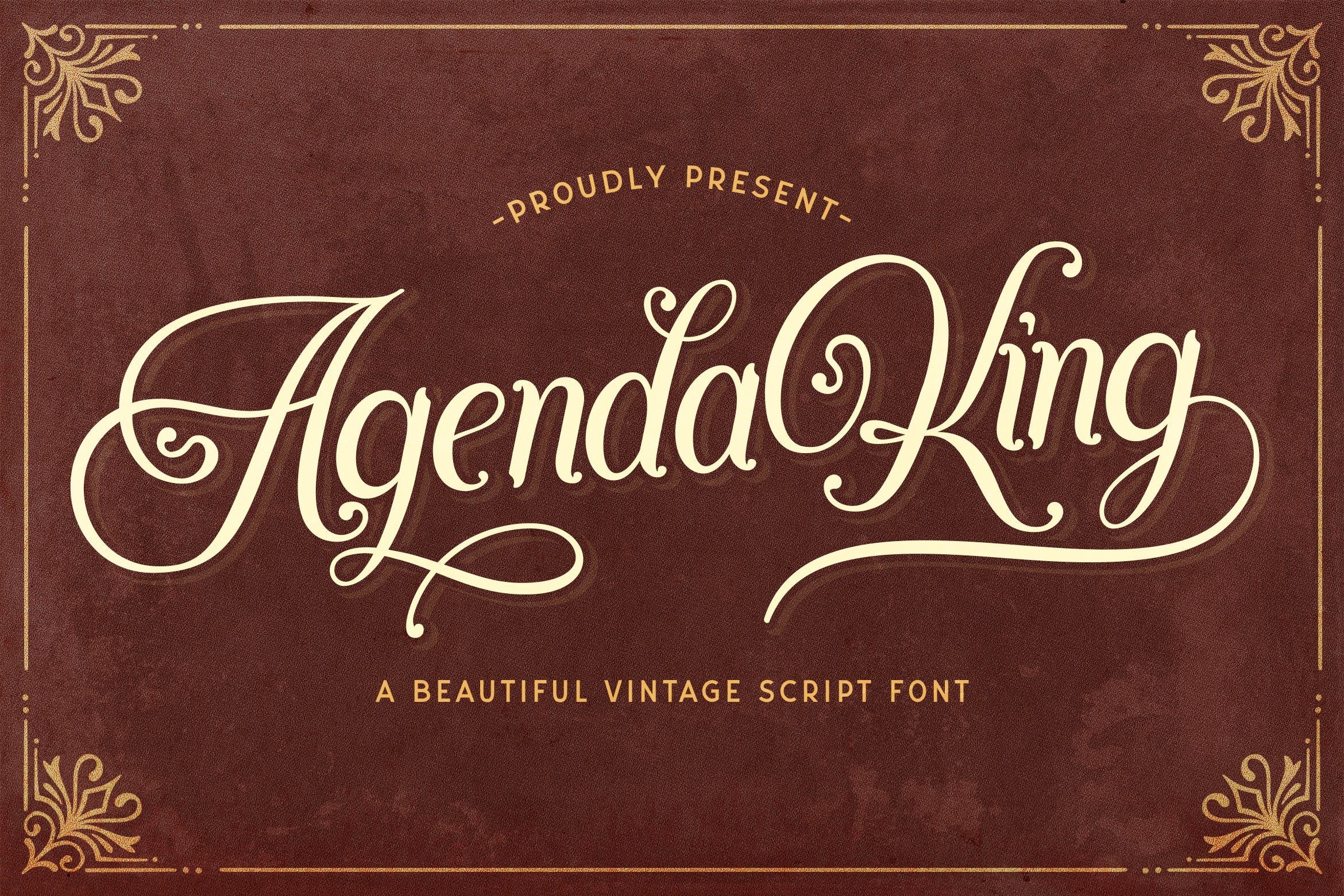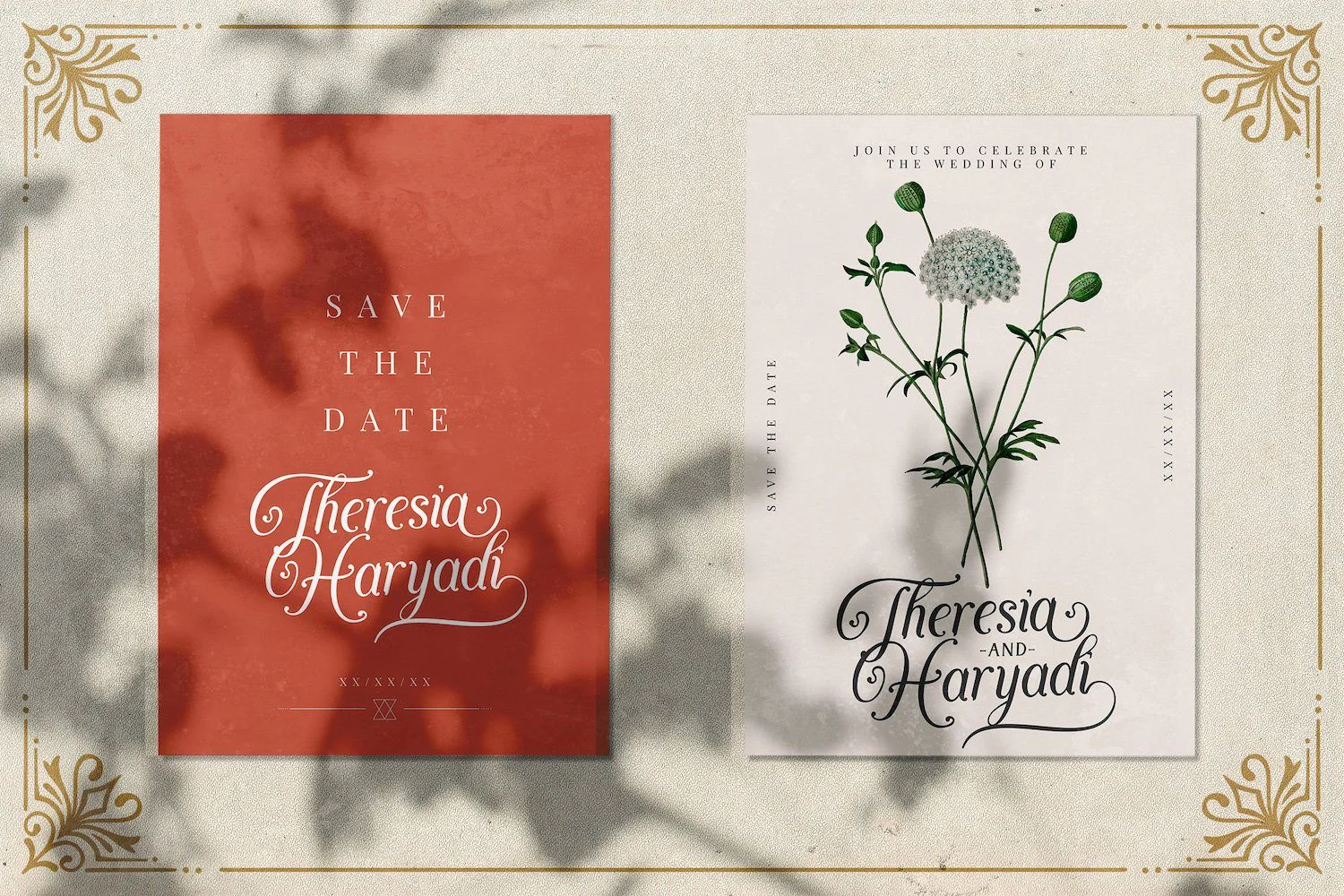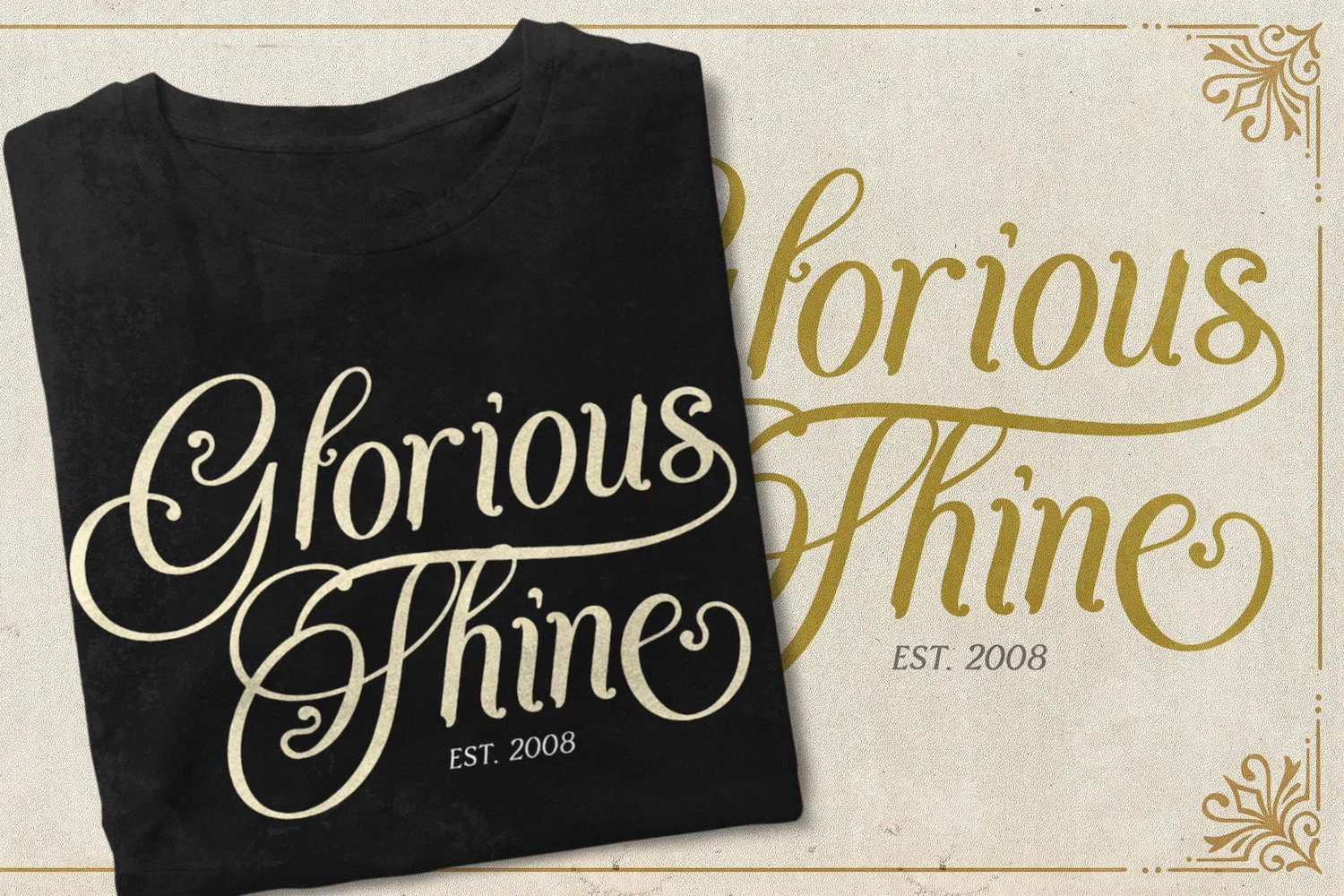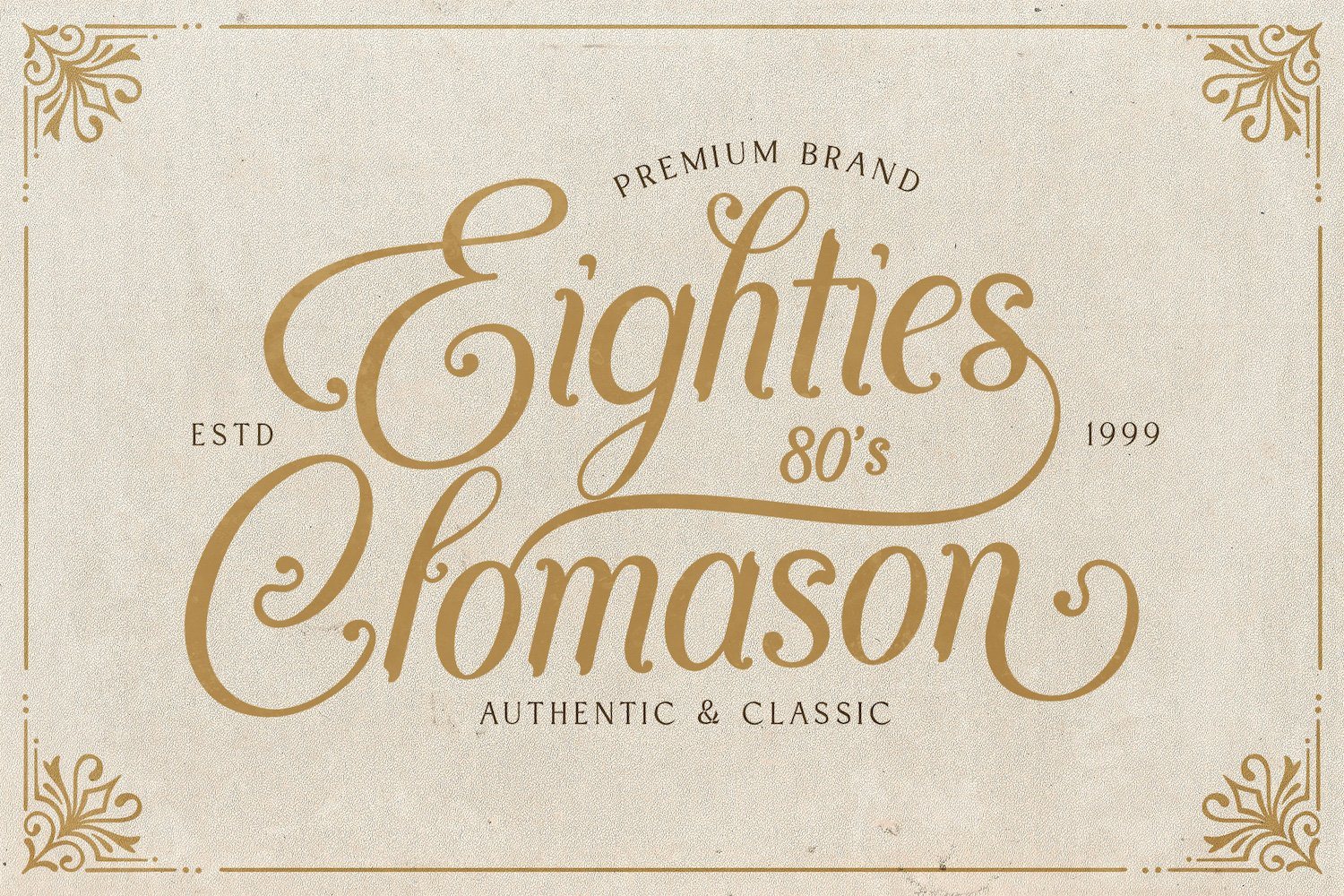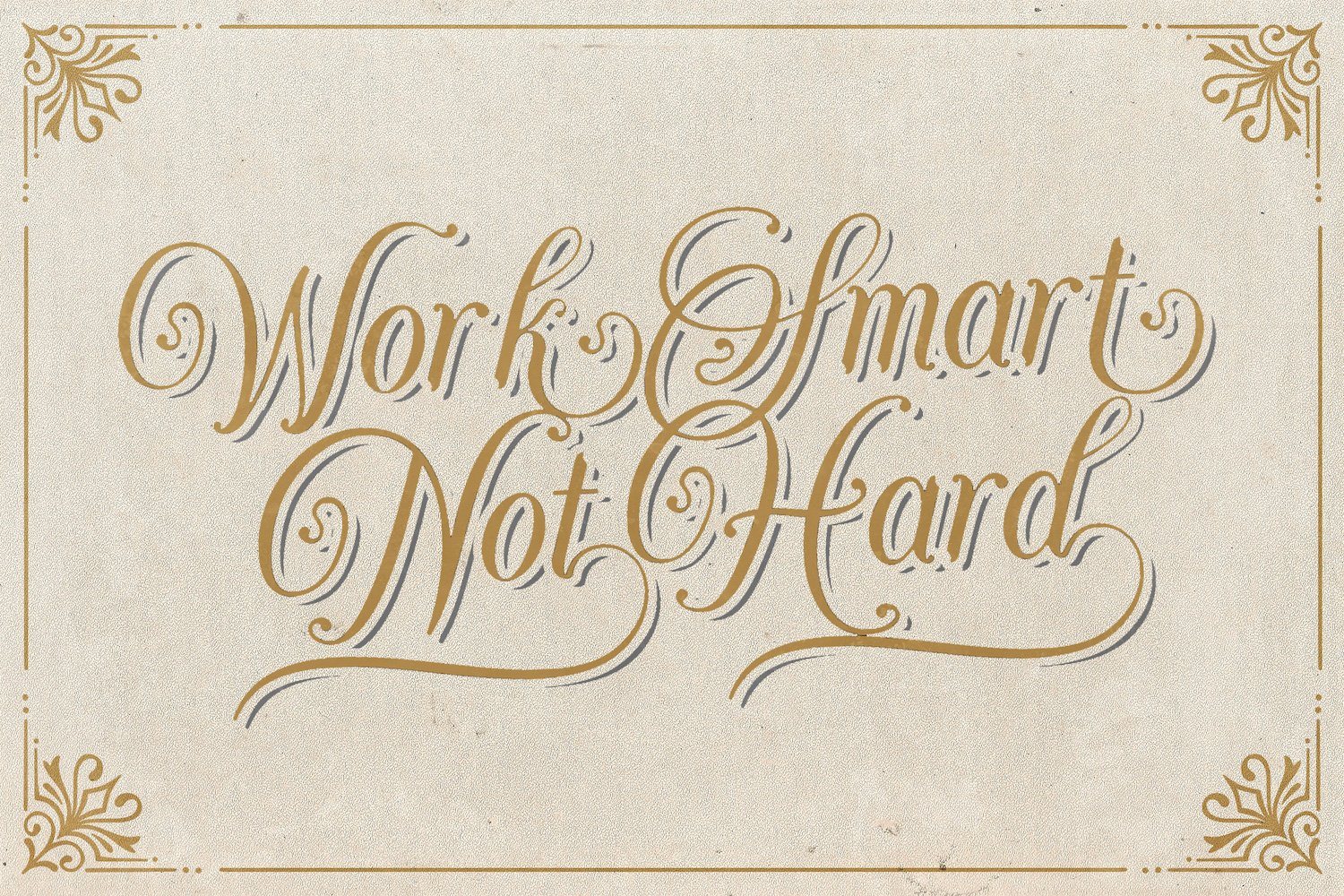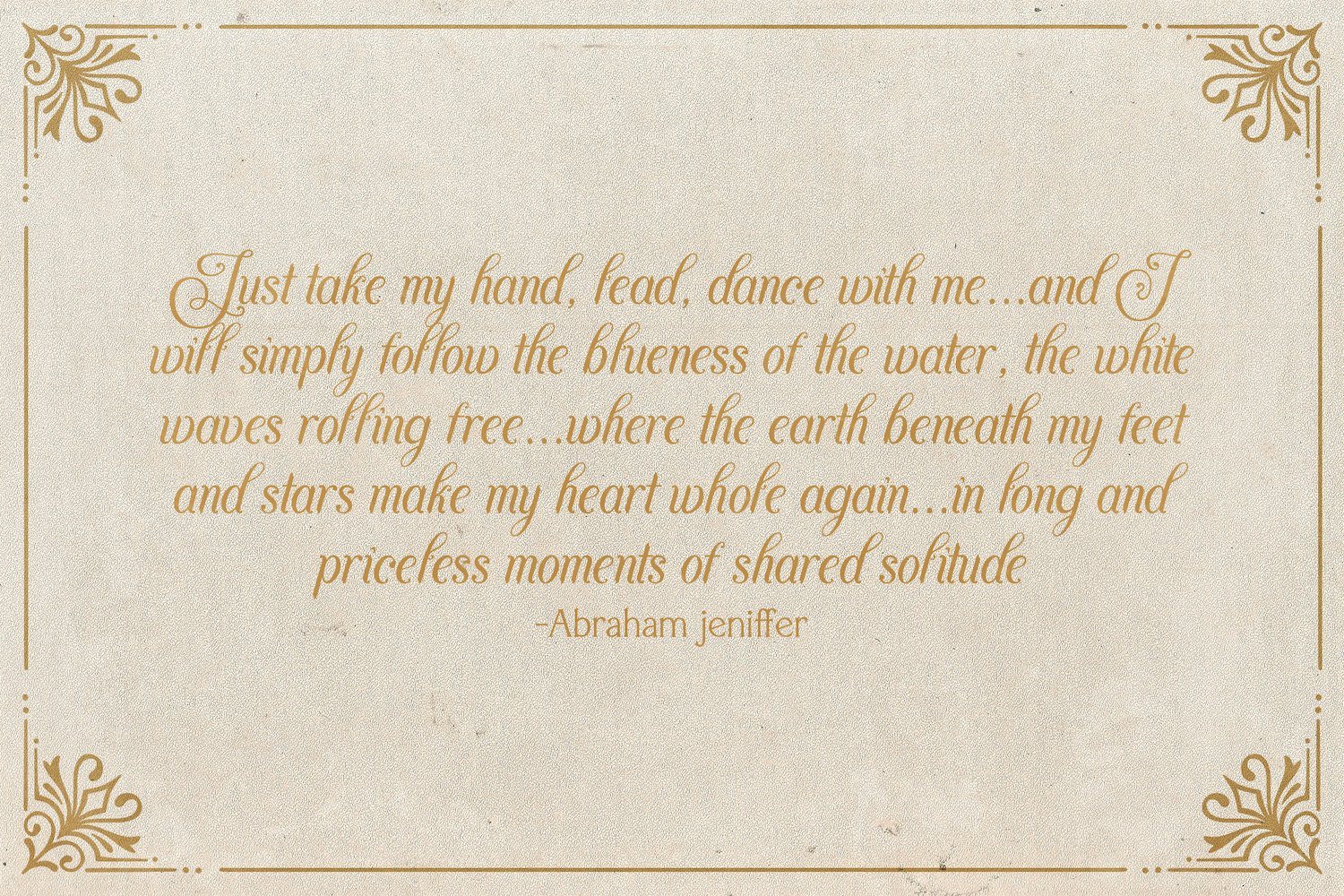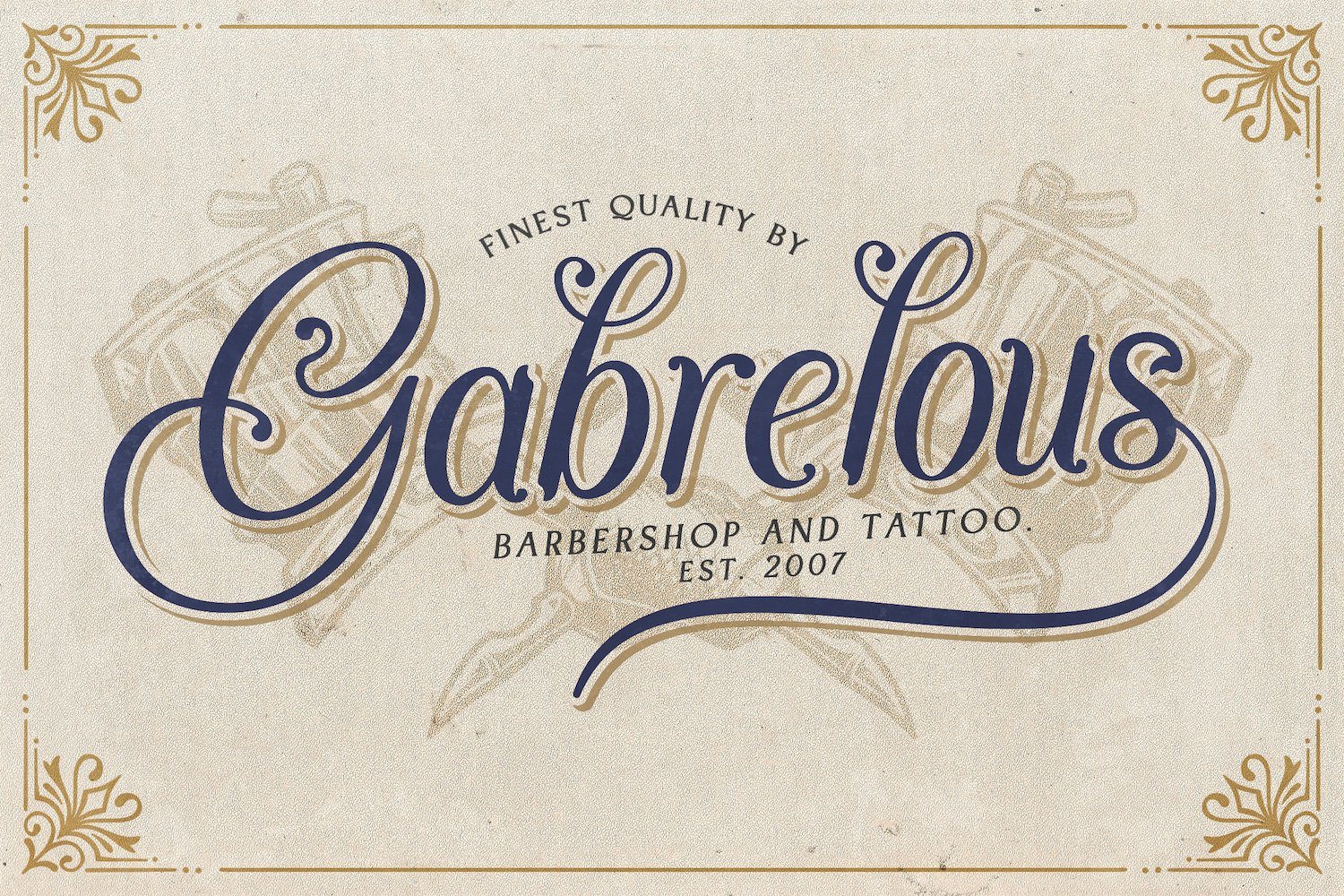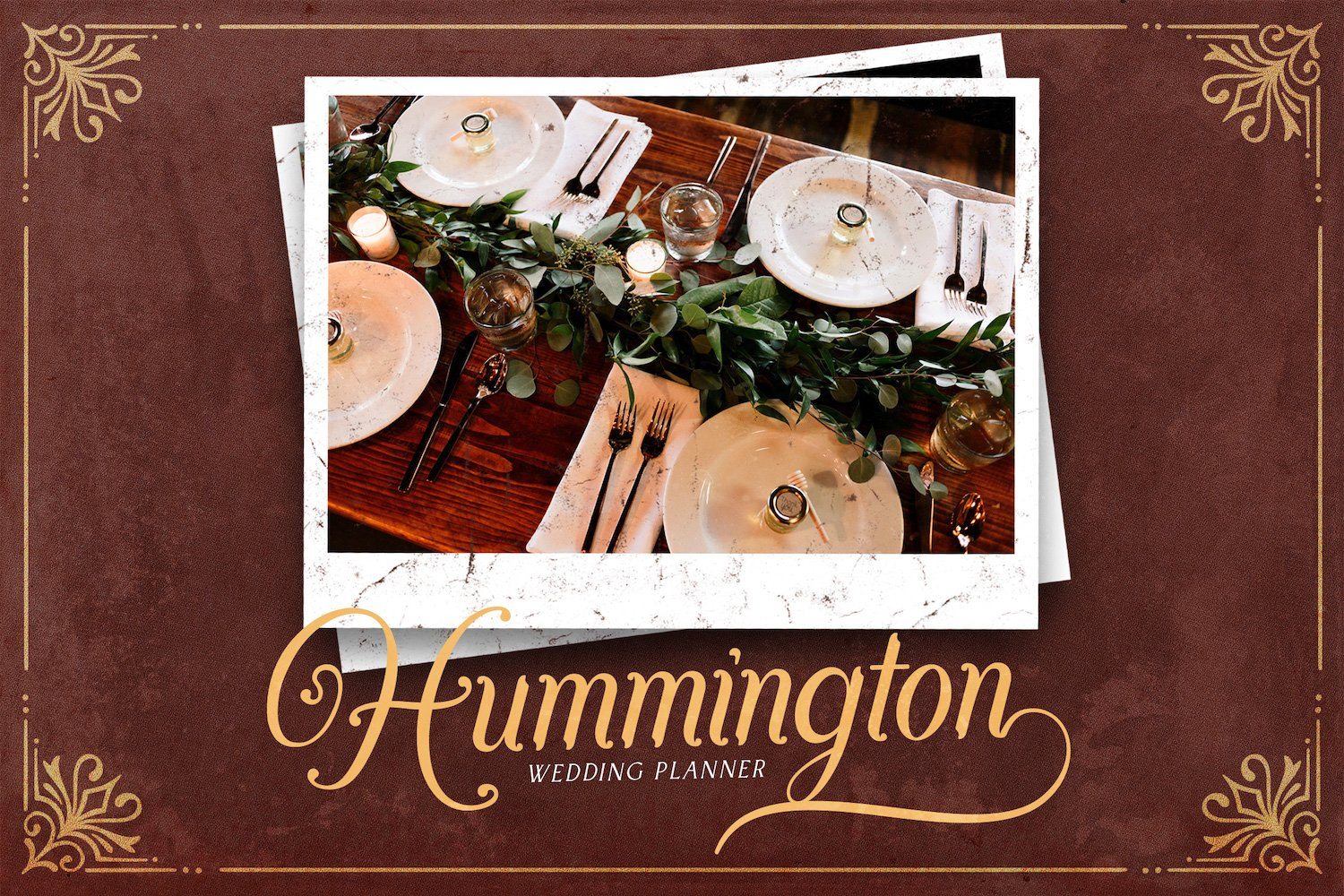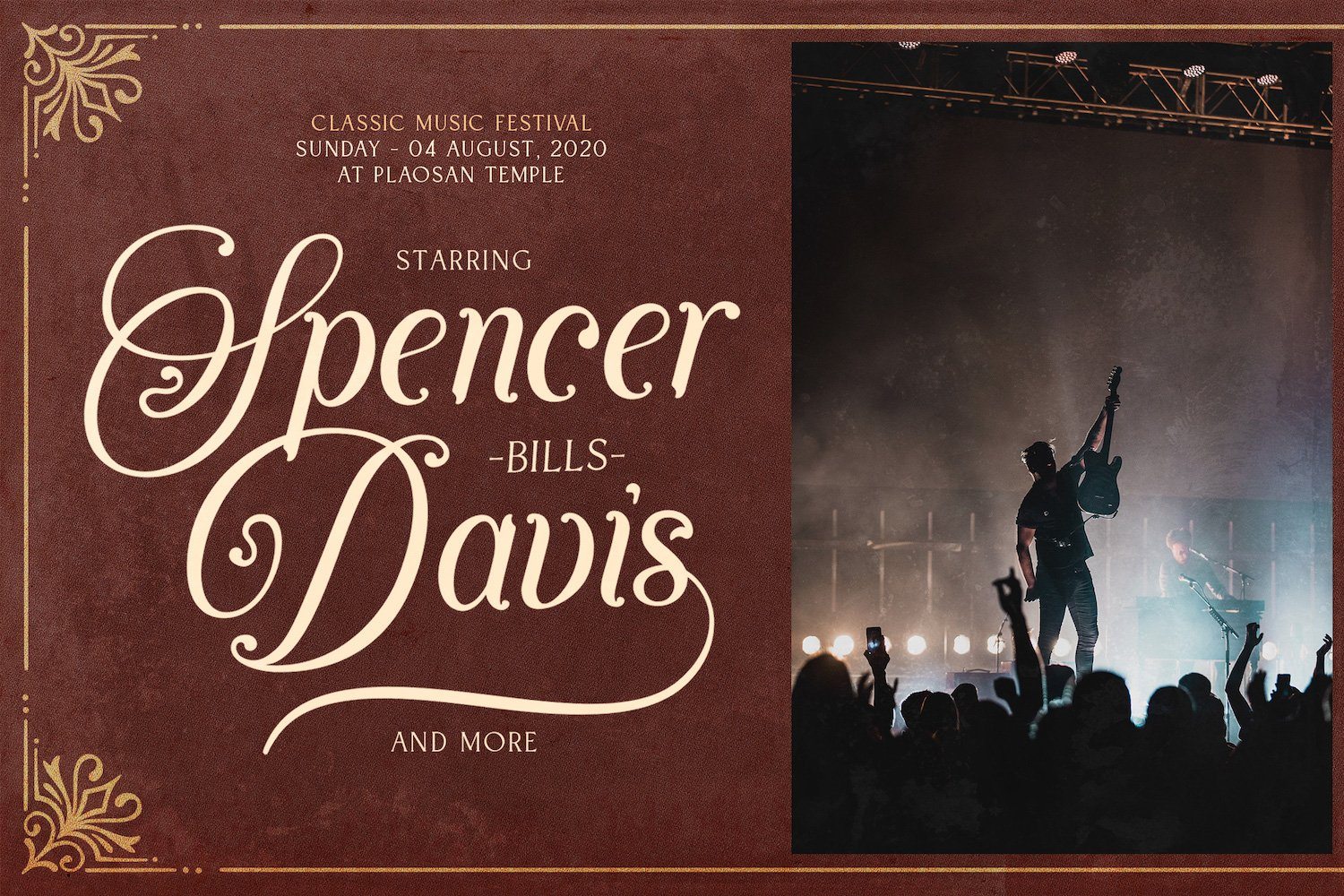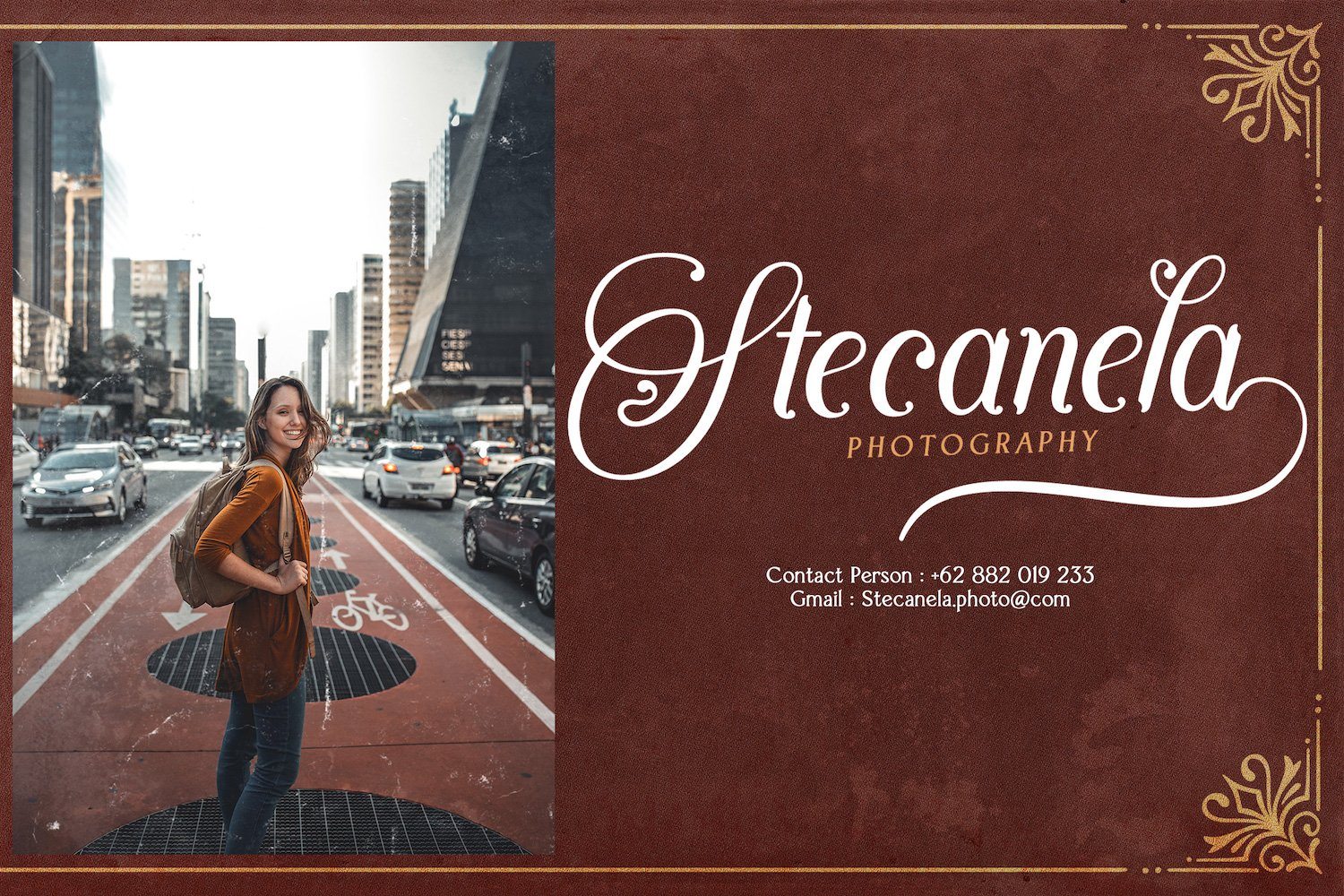
Agenda King - Vintage Script Font
Introducing Agenda King - Vintage Script Font
Agenda King feels equally charming and elegant. Fall in love with its incredibly versatile style and use it to create gorgeous wedding invitations, beautiful stationary art, eye-catching social media posts, and much more!
Introducing Agenda King - Vintage Script Font
Agenda King feels equally charming and elegant. Fall in love with its incredibly versatile style and use it to create gorgeous wedding invitations, beautiful stationary art, eye-catching social media posts, and much more!